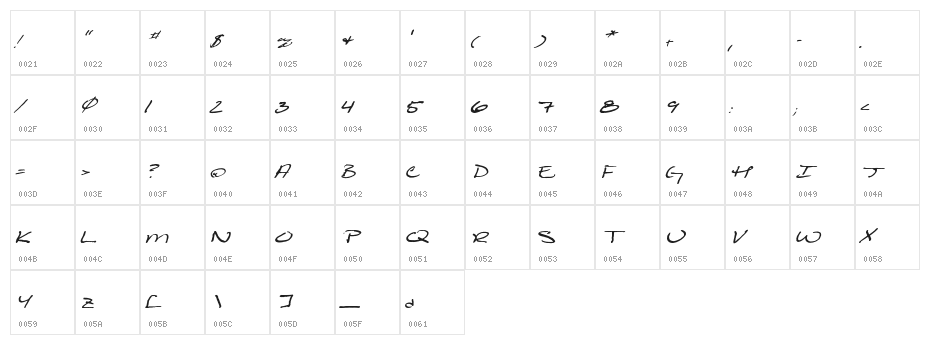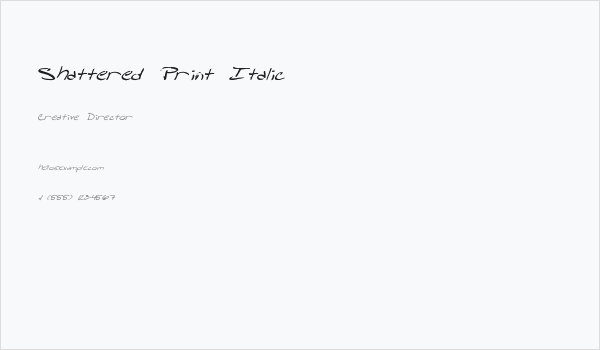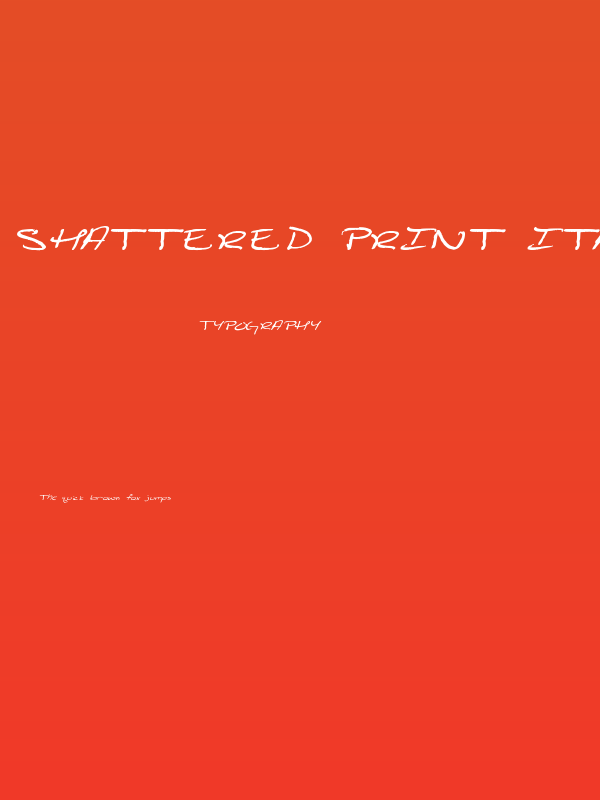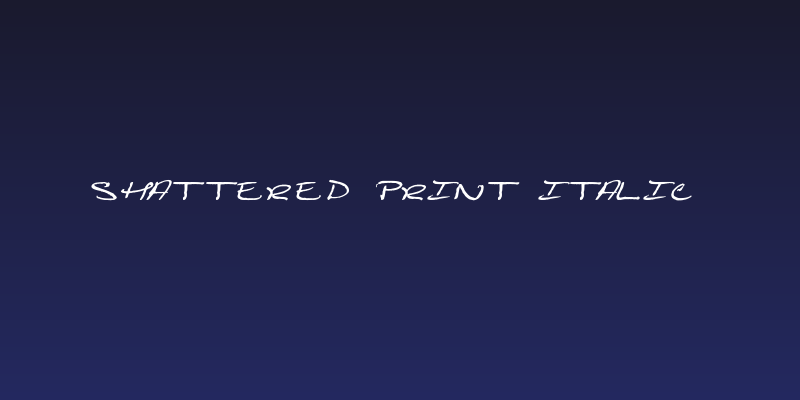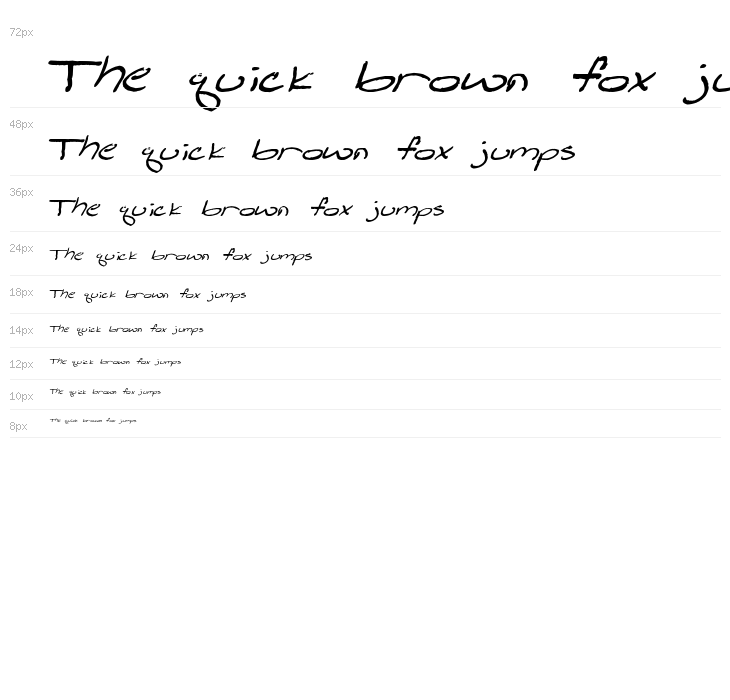
Shattered Print Italic Font
Shattered Print Italic Description
This font exhibits a dynamic and energetic style, characterized by its italicized, handwritten appearance. The strokes are uneven and slightly jagged, giving it a raw and expressive feel. The uppercase letters are bold and prominent, while the lowercase letters maintain a consistent flow with a slight slant. Numbers and special characters follow the same stylistic cues, ensuring uniformity across all elements. The font's overall look is informal and artistic, making it ideal for creative projects that require a personal touch.
| Proposed Projects | Ideal for artistic projects, personal branding, creative invitations, and expressive posters. |